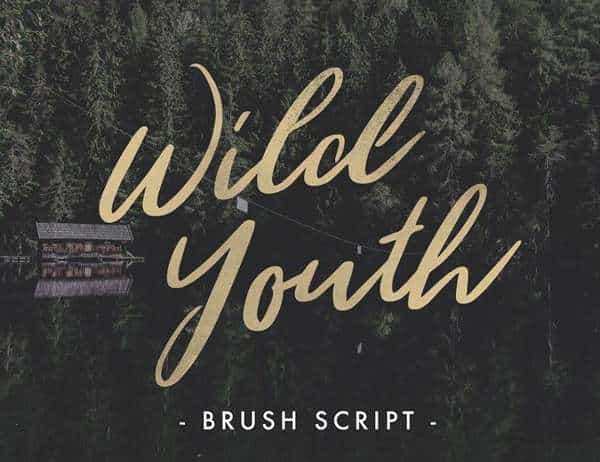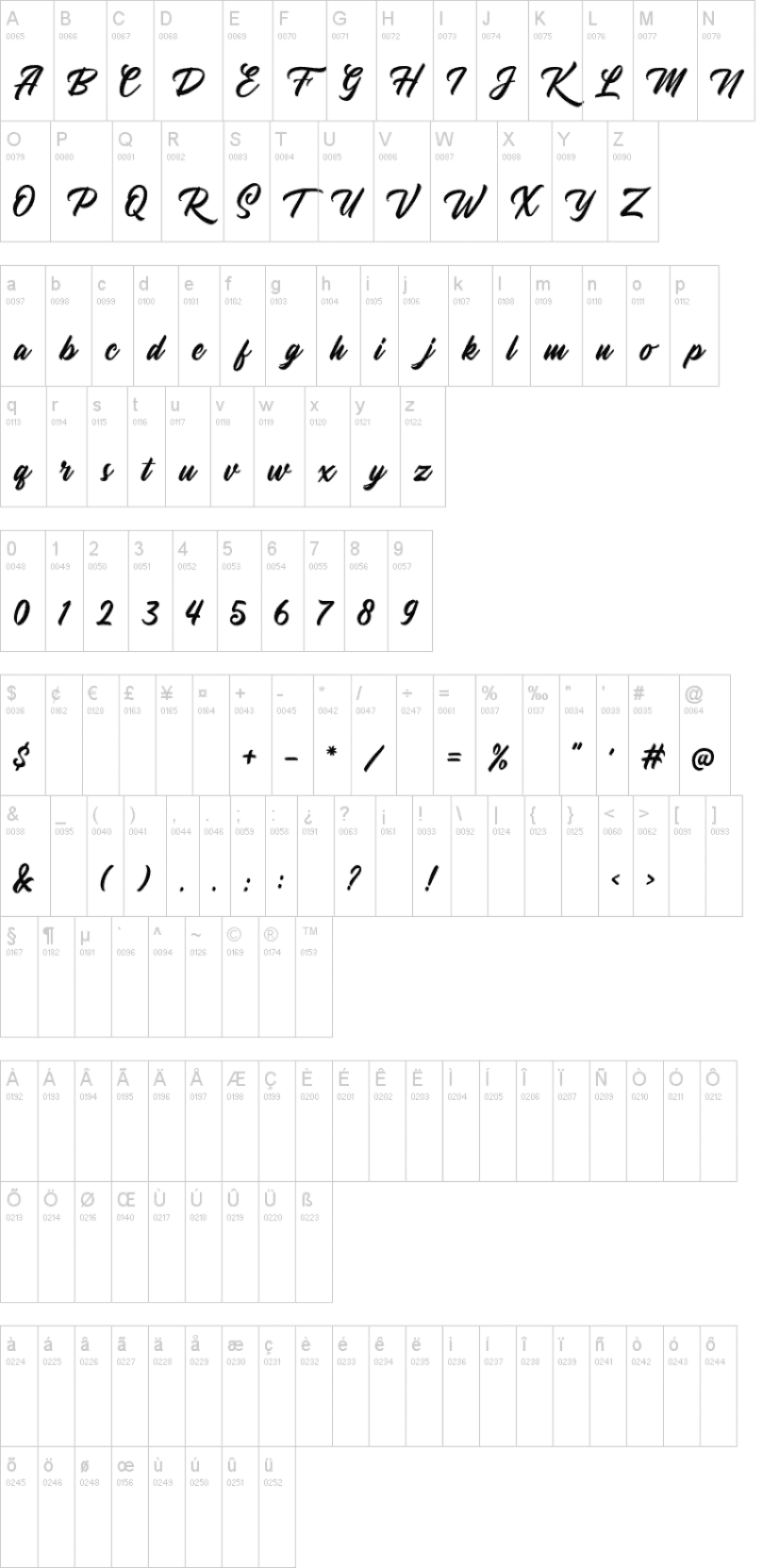
Presenting to you the Youther Brush – Layered Font Duo!Youther is a font duo with layered style, meaning that one style is printed over the other style. It is possible to create a fancy typography only with these fonts, without a plugin or any action!This font family include the wonderful script and it also has the caps font.